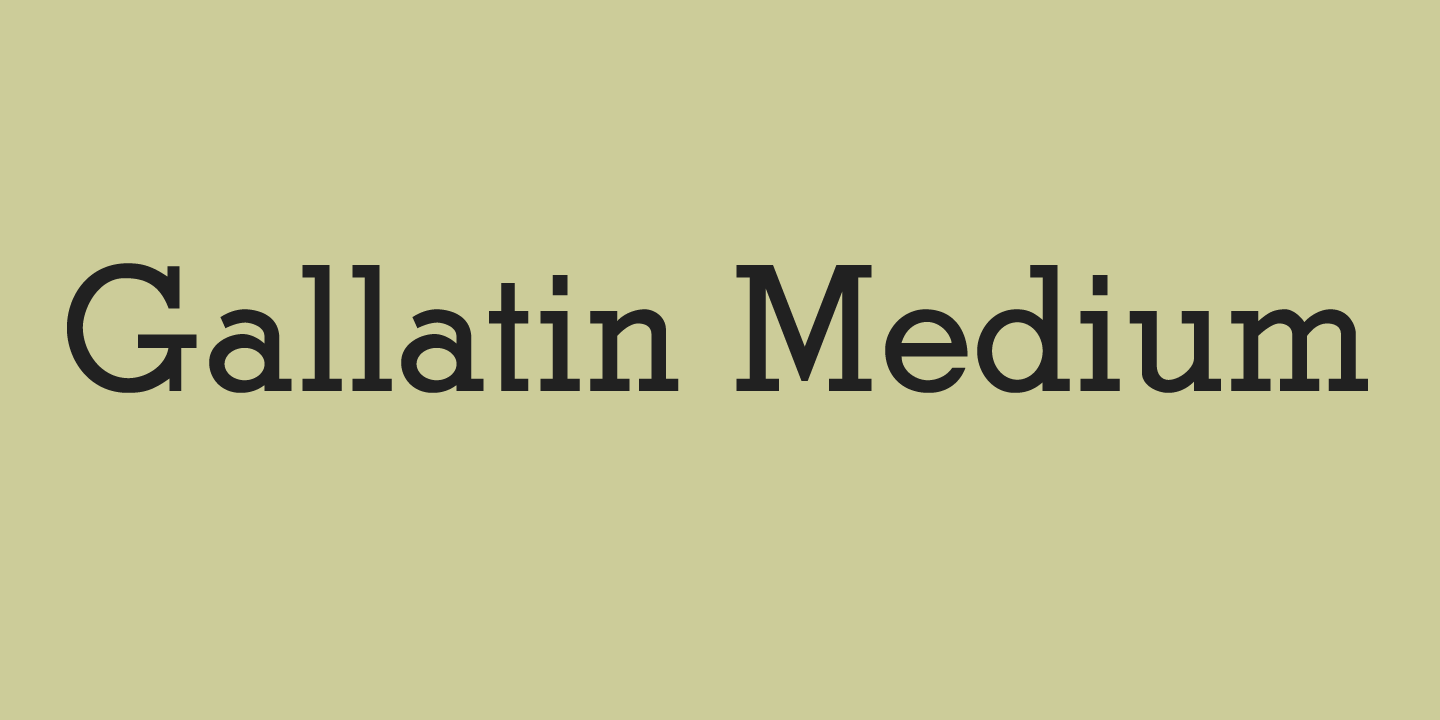
The Gallatin Medium Font excels in various design applications including professional corporate branding, classic business marketing, traditional publishing communications, academic institution materials, financial services identities, professional legal promotions, corporate office signage, business document packaging, institutional conference materials, and distinguished professional projects that demand corporate authenticity and traditional sophistication.
What makes the Gallatin Medium Font exciting is its balanced embodiment of professional reliability and classic business tradition through letterforms that capture the essence of corporate excellence and the established credibility of traditional business practices. This typeface demonstrates exceptional professionalism through carefully proportioned characters that suggest the steady confidence of established corporations, the trusted reliability of professional services, and the institutional stability that makes traditional business typography so commercially effective and professionally respected. The font's corporate personality makes it perfect for established businesses and professional organizations seeking to communicate business authenticity, corporate expertise, and the kind of professional reliability that creates memorable business experiences through typography that literally establishes with corporate authority.
The Gallatin Medium Font family typically includes balanced weight variations that enhance the professional aesthetic, featuring corporate styling options and extended character sets optimized for business communications and institutional applications. These family options often include business-inspired alternates, corporate symbols, and professional decorative elements that provide designers with comprehensive tools for creating authentically corporate typography that celebrates business tradition while maintaining contemporary design appeal and professional credibility.
Business professionals and corporate organizations consistently select Gallatin Medium Font Free Download for projects requiring typography that communicates corporate authenticity and professional sophistication. This typeface delivers exceptional performance in business marketing, corporate branding, and professional communications where establishing trust and creating reliable corporate atmosphere is essential for business engagement. The font's medium character makes it particularly effective for document and institutional applications. Download Gallatin Medium Font Free Download today to access this professionally balanced typeface that transforms corporate communications with its business elegance and professional sophistication, creating compelling corporate experiences that honor the magnificent stability of traditional business while celebrating the trusted reliability that defines authentic corporate culture and professional excellence.